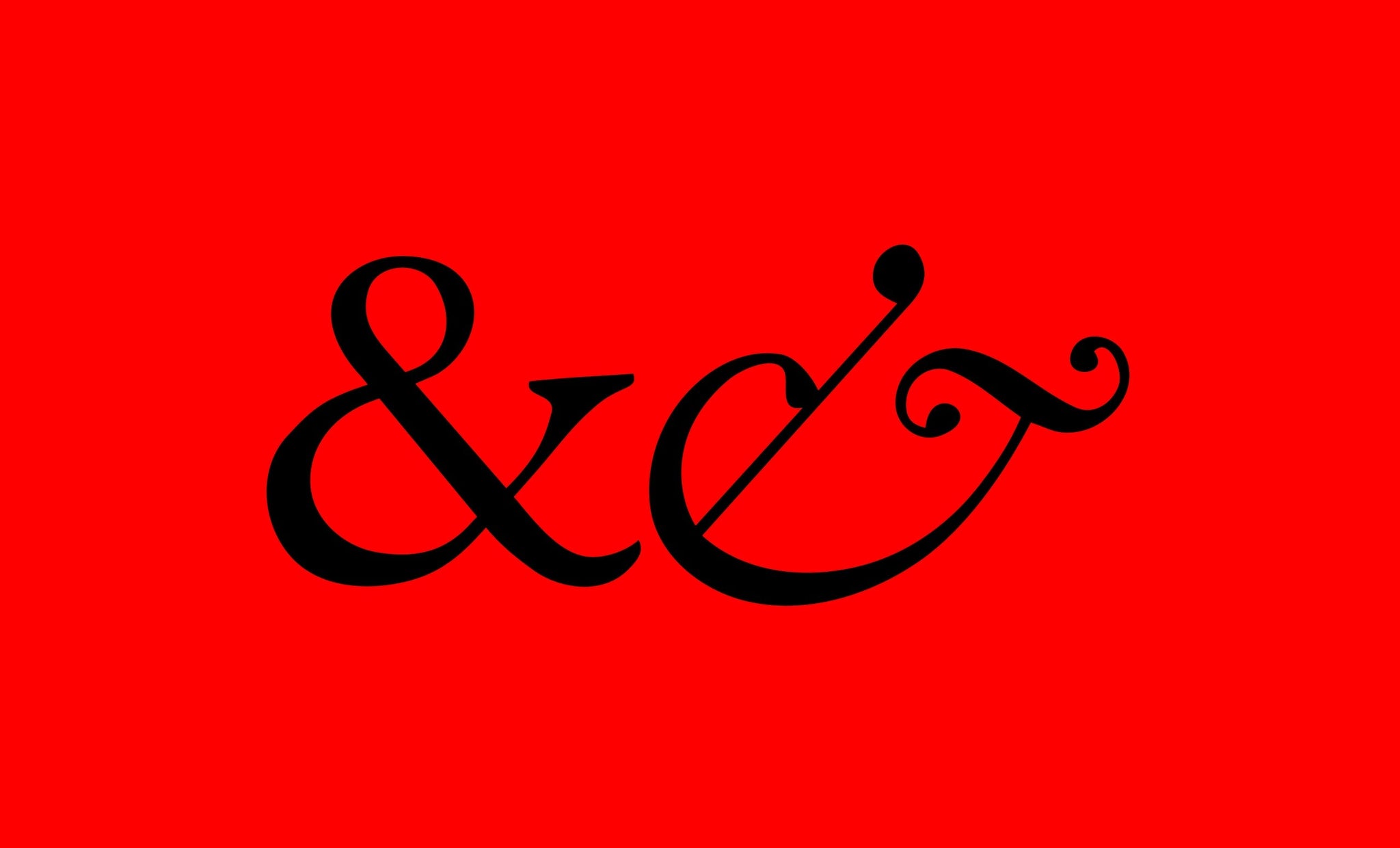
The ampersand’s legacy has reached far and wide since then, and its multi-faceted origins are still impacting its use to this day.
It’s a shape we know, but what you may not realise is that the form of the ampersand is over 1,500 years older than the word ampersand itself. The ampersand (&) began its life as a literal ligature of the Latin word et (meaning “and”). Ancient Roman scribes often connected the letters “E” and “T” in cursive writing to save time, producing a combined symbol for “and”. In fact, the oldest known example of this et-ligature comes from 1st-century graffiti in Pompeii, where a scrawl on a wall clearly joins the E and T into an early ampersand. By the 4th century, in the flowing New Roman Cursive script, such ligatures were commonplace, and the et-symbol grew more stylised.
Importantly, a parallel “and” sign was also invented in antiquity: Tironian notes, a shorthand system developed by Cicero’s secretary, Marcus Tullius Tiro (~63 B.C.), included a minimal symbol for et, resembling the number seven. This Tironian et (⁊) persisted in some medieval contexts (especially in Irish, Anglo-Saxon, and church texts) as an alternative “and” sign. Interestingly, they’re still used on some Irish road signs to this day! However, the more elaborate ampersand ligature was the form that survived into modern typography.
As the Latin script evolved through late antiquity and the Middle Ages, the ampersand assumed various shapes in different writing styles. During the era of Uncial and Insular scripts (circa 4th–8th centuries), scribes used both the Tironian “7”-like et and the classic ampersand form.
By the Carolingian minuscule of the 8th–9th centuries (a calligraphic standard in the medieval European period), most ligatures were purged for clarity, but “&” remained one of the only allowed ligatures. In beautifully illuminated manuscripts like the Book of Kells (c. 800 AD), one can find the ampersand shape embedded in the Latin text as a graceful contraction of et.
This Carolingian-style ampersand is almost identical to the one we use today. Scribes favoured it not only for tradition but also for practical reasons: using “&” helped compress text to justify lines in manuscript columns.
After 1200, as Gothic textual scripts emerged, the simpler Tironian “&” became more common in vernacular texts, but the ornate ampersand never disappeared. By the Renaissance (c. 15th century), scribes and early humanist writers revived many classical forms – including the ampersand – crafting more calligraphic variants.
Thus, by the late medieval and early Renaissance period, the ampersand existed in two flavours: the traditional Carolingian form (looping and nearly abstract) and more cursive forms that clearly linked a lowercase “e” to “t”.
With the invention of movable type in Europe via Gutenberg in the 1450s, printers eagerly adopted the ampersand. It was included in early typefaces as a standard character – in fact, for centuries, the ampersand was taught as the 27th character of the alphabet in English schools. Children would recite “X, Y, Z, and per se and,” meaning “& by itself is and,” which slurred together to give us the word “ampersand” by 1837!
Early printers used “&” to save space and effort, substituting a single “&” block for the word “and” or “et” made composition more efficient. In the first Roman and italic typefaces of the late 15th and 16th centuries, the ampersand appeared in two forms: a Roman-style ampersand descended from the Carolingian shape, and an italic ampersand that evolved later from cursive scripts.
By the 1700s, the ampersand’s form in type had largely stabilised, echoing its manuscript heritage. Remarkably, modern “&” is essentially the Carolingian design formalised in metal. For Roman fonts, most ampersands retained that classic looped form with an almost “𝑒+𝑡” shape hidden inside. In italic fonts, ampersands were often more flamboyant, sometimes barely resembling et at all, instead looking like a swirling calligraphic figure – a tradition that began in Renaissance chancery scripts. Both legacies are still with us – basically, every Latin typeface includes an ampersand, and it usually comes in either a Roman style or an italic/script style (sometimes both).